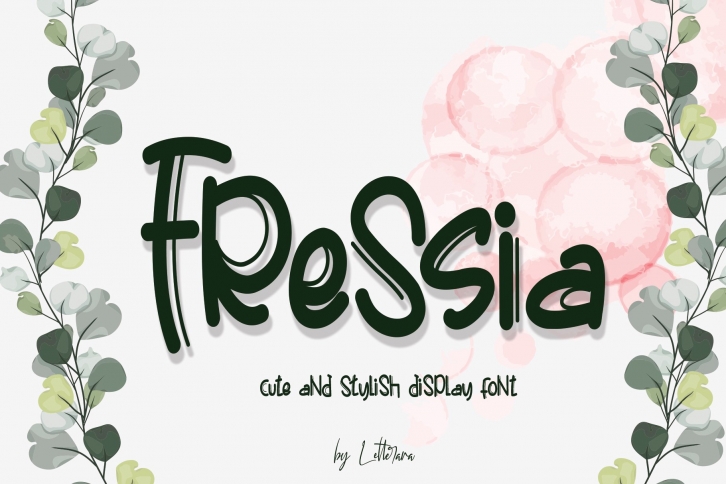
Fressia is a beautiful font that was designed by letterara. It's a great choice for designers and creatives who need such a font. It was released on March 10, 2020 and the file size is 14.20 MB. Fressia may give a more youthful, expressive and casual look to your project. It is a very beautiful, refined, elegant, and high-quality font.